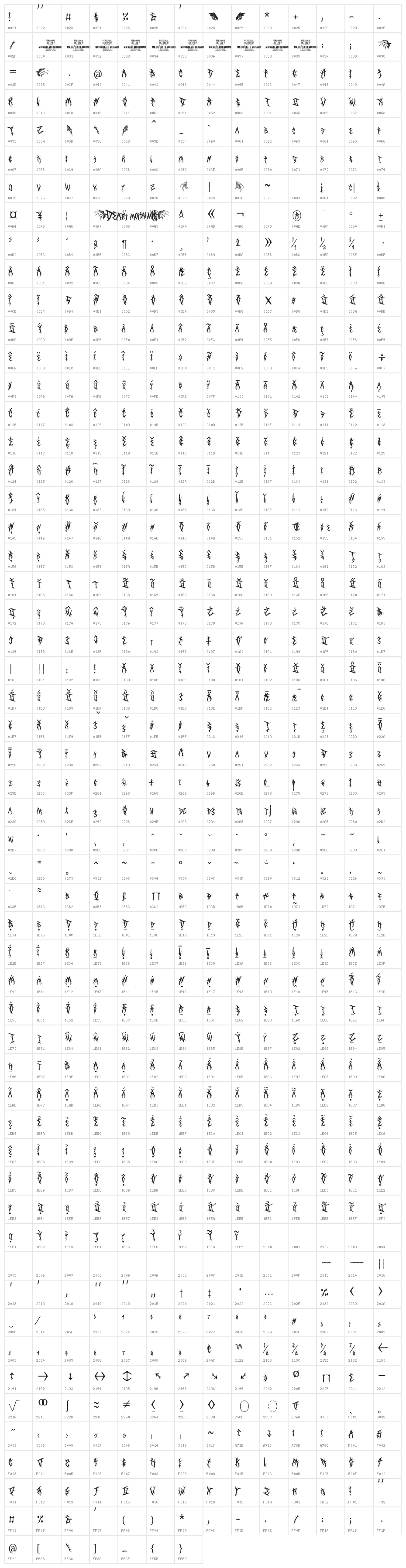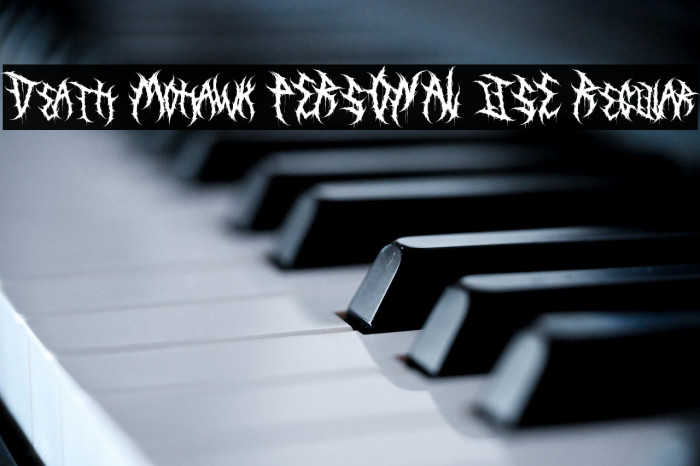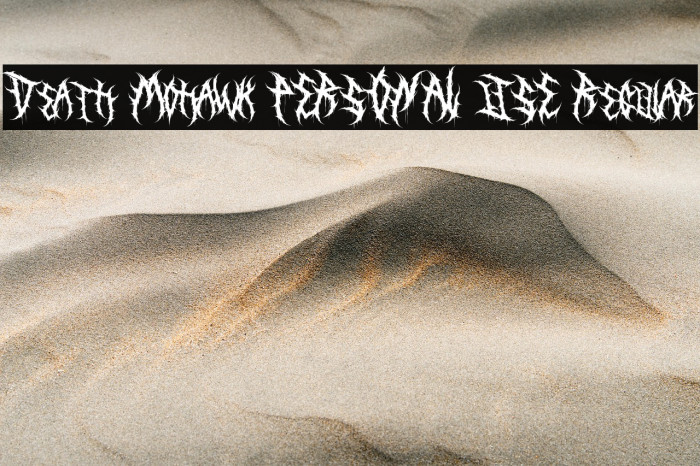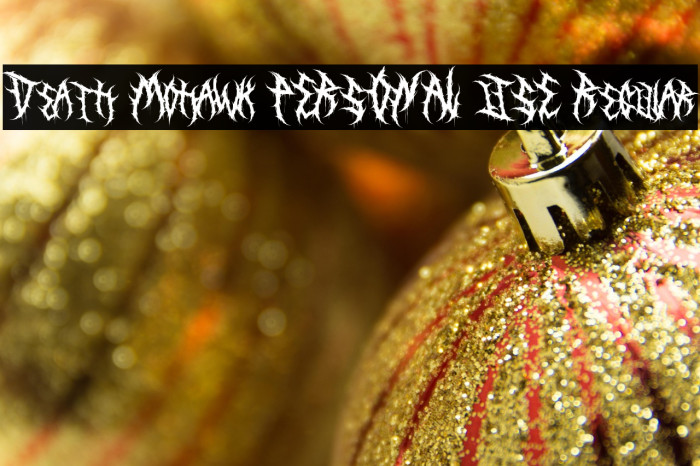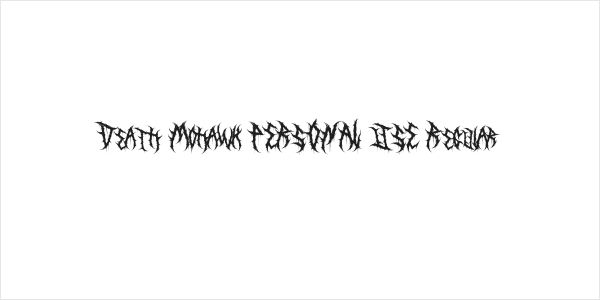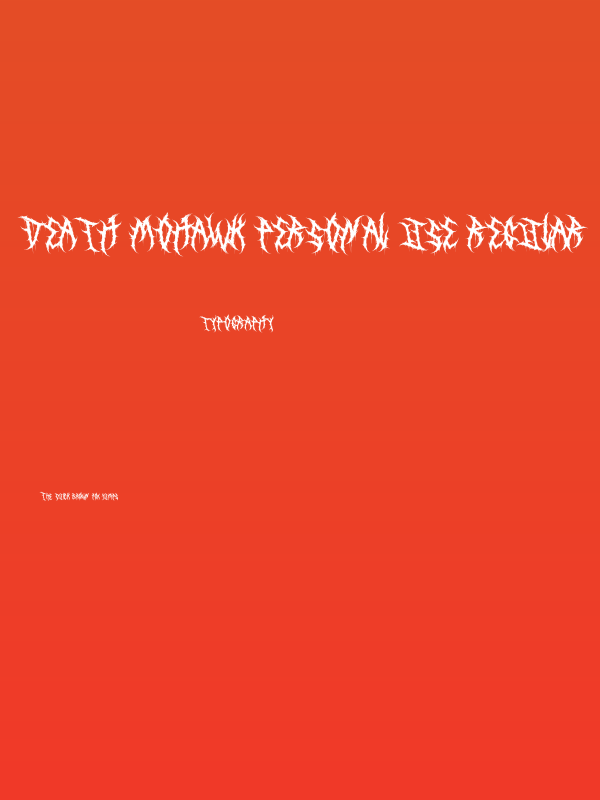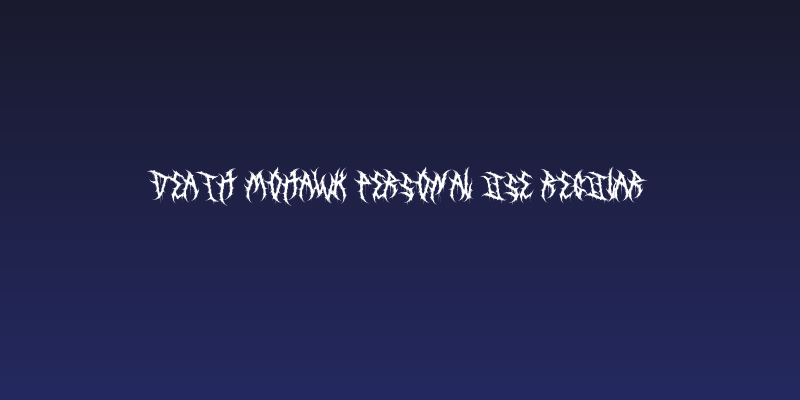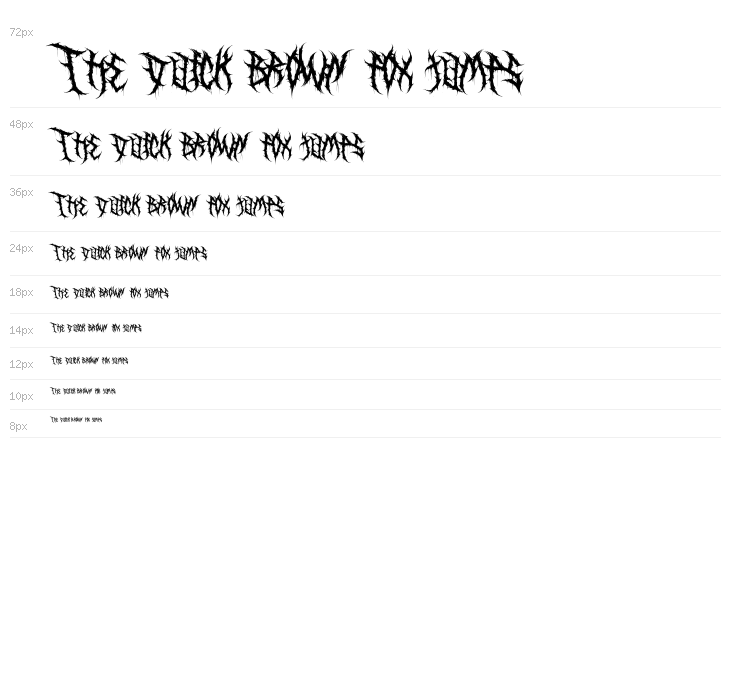
Death Mohawk PERSONAL USE Regular Font
Death Mohawk PERSONAL USE Regular Description
This font features a highly decorative and edgy design, characterized by sharp, thorn-like extensions that give it a rebellious and intense appearance. The letters are intricately detailed, with each character appearing as if it is crafted from twisted vines or barbed wire. This creates a chaotic yet structured aesthetic, making it stand out with its unique and aggressive style. The font's complexity and artistic flair make it suitable for projects that require a bold and unconventional look.
| Proposed Projects | Ideal for album covers, band logos, event posters, or any project needing a bold, rebellious aesthetic. |